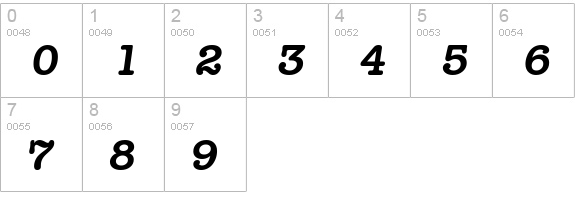
TypewriterSerial-BoldItalic Font Details
Introducing TypewriterSerial-BoldItalic font, a bold and stylish typeface perfect for adding a touch of retro charm to your projects. This versatile font combines the classic look of a typewriter with a modern twist, making it ideal for creating eye-catching designs that stand out. With its bold and italicized style, TypewriterSerial-BoldItalic font is sure to make a statement in any design project, whether it's for print or digital use. The clean lines and distinctive characters of this font give it a unique and professional look that is perfect for logos, headlines, and more. Best of all, TypewriterSerial-BoldItalic font is available for free download at FontsMarket.com. So you can easily add this stylish font to your collection and use it in all your creative projects without any cost. Don't miss out on the opportunity to enhance your designs with the timeless appeal of TypewriterSerial-BoldItalic font – download it today and start creating!